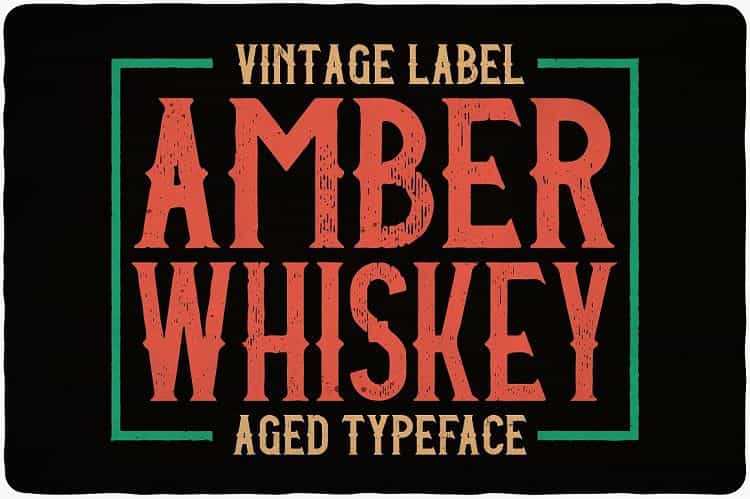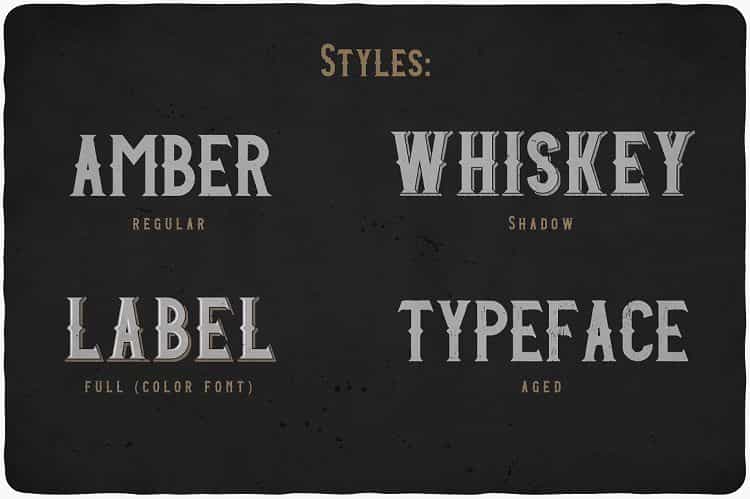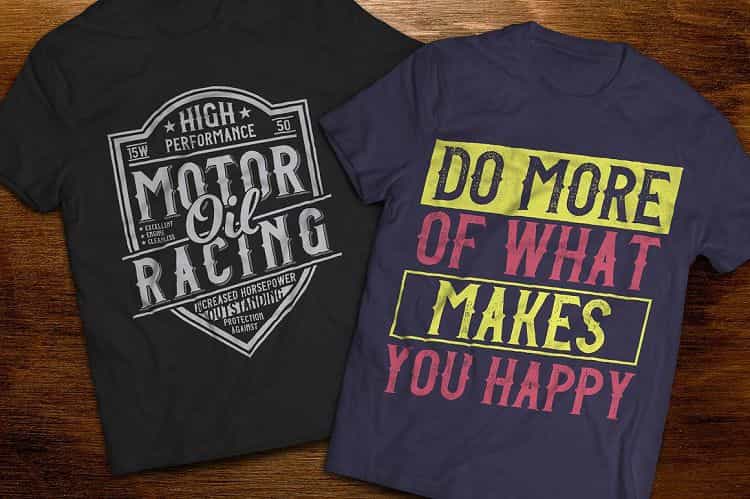
Amber Whiskey Typeface
Introducing AmberWhiskey. It is made by OlegVoznyy, this font costs a lot on creativemarket but it is free today to download. AmberWhiskey is a font with a vintage style label. This font has four styles, for example the 3rd preview. The typeface will be readable in any of your designs.